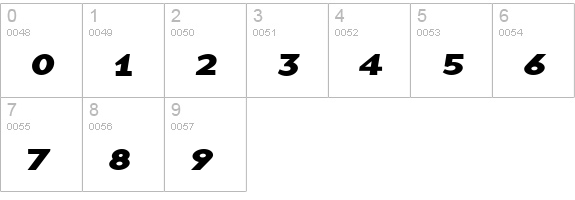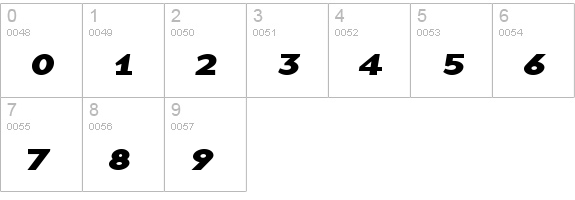
BaseNineSCBI Font Details
BaseNineSCBI font is a modern and stylish typeface that exudes a sense of sophistication and elegance. With its sleek and clean lines, this font is perfect for a wide range of design projects, from logos to posters to branding materials. The sharp edges and bold strokes of BaseNineSCBI make it stand out and grab attention, while still maintaining a sense of professionalism and class. What makes BaseNineSCBI even more appealing is that it is available for free download at FontsMarket.com. This means that you can easily access this stunning font and use it in your projects without any cost. Whether you are a designer looking to add a touch of luxury to your work or a business owner wanting to create a strong visual identity, BaseNineSCBI is the perfect choice. Download it today and elevate your designs to the next level.